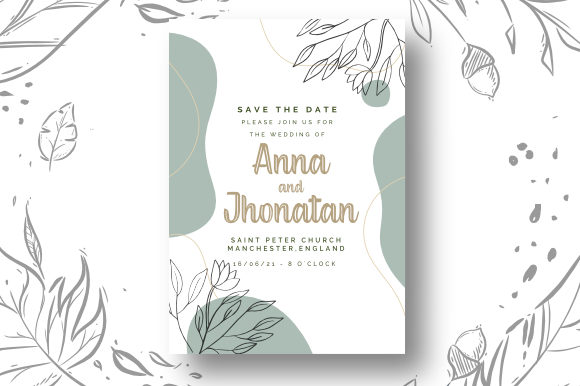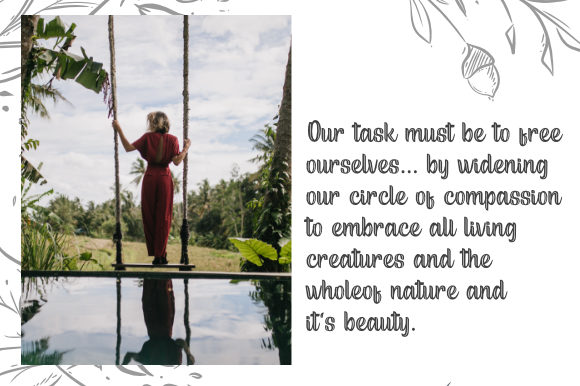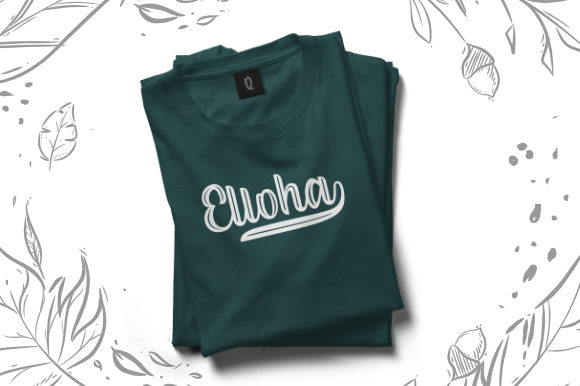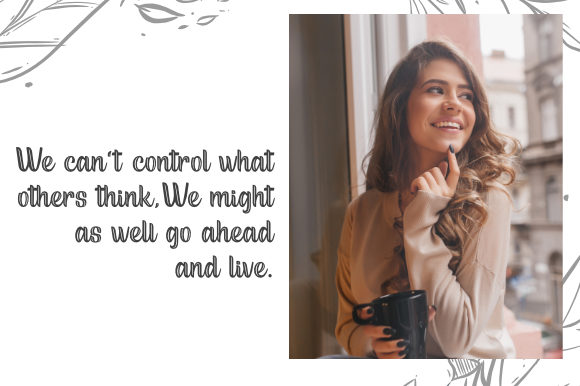
About Quoote Font
Quoote is an unique handwritten font. Whether you’re using it for crafting, digital designing, presentations, or greeting card making, it’s perfect!